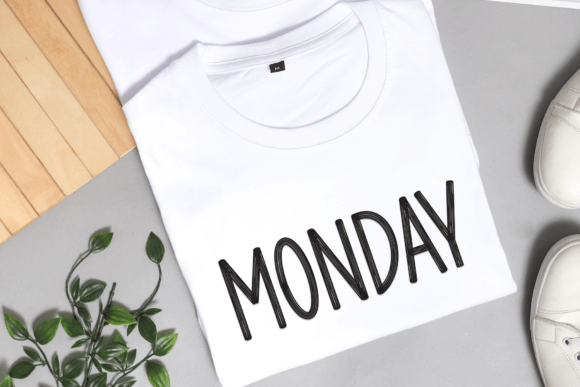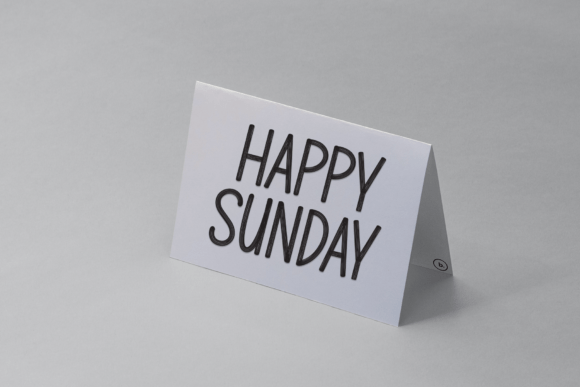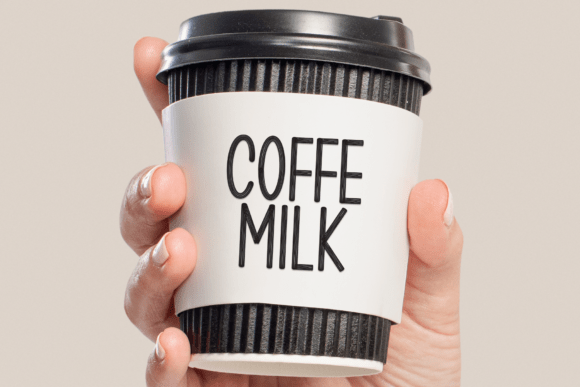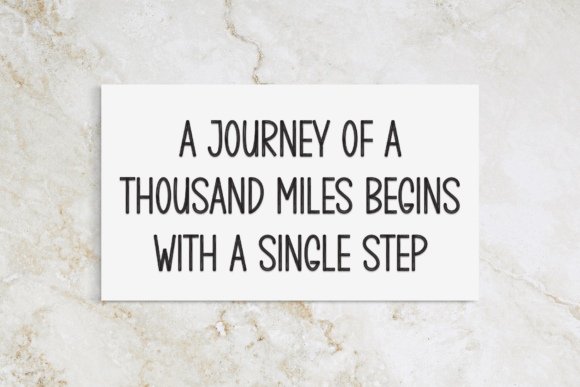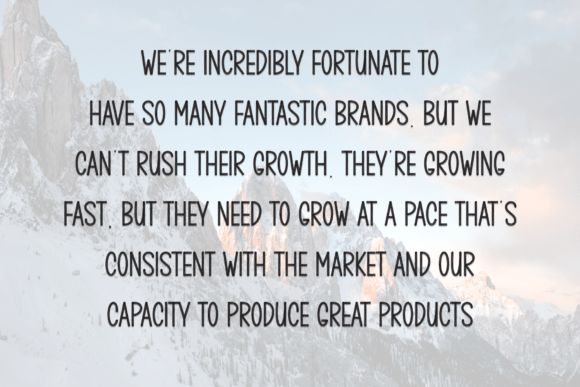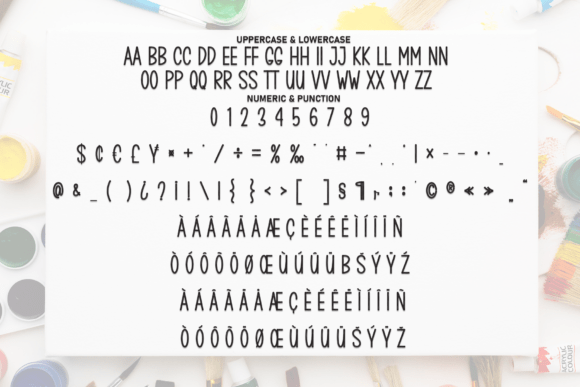
Introduction to Sample Brush Font
Immerse yourself in the captivating charm of ‘Emotions Unleashed’, a meticulously handcrafted display typeface exuding a warm, friendly glow.
This font infuses each stroke with an invigorating splash of enjoyment, lending a creative edge to a wide array of designs Whether you are designing wedding invitations or composing heartfelt greetings, ‘Emotions Unleashed’ endows every word with a spark of magic.